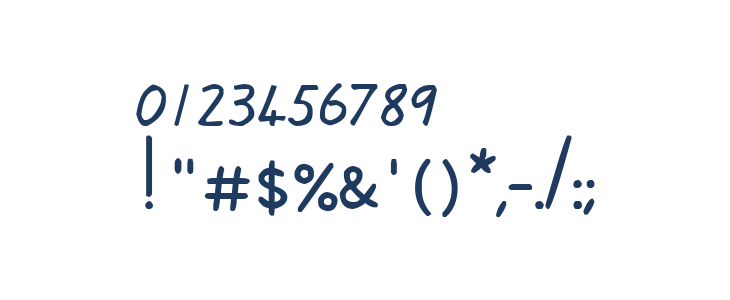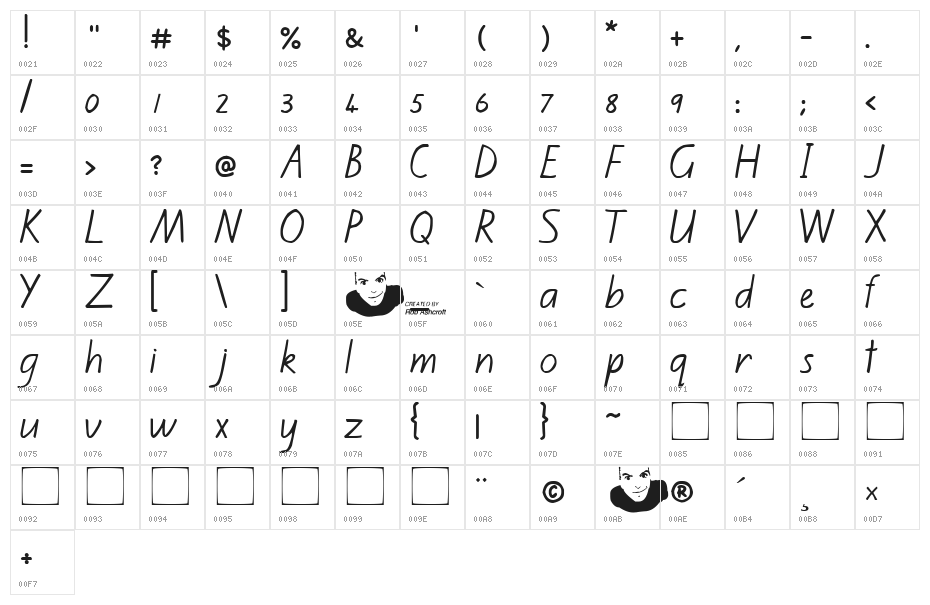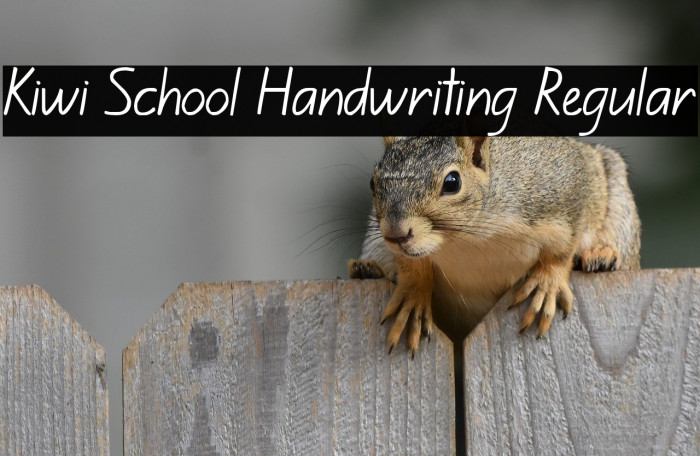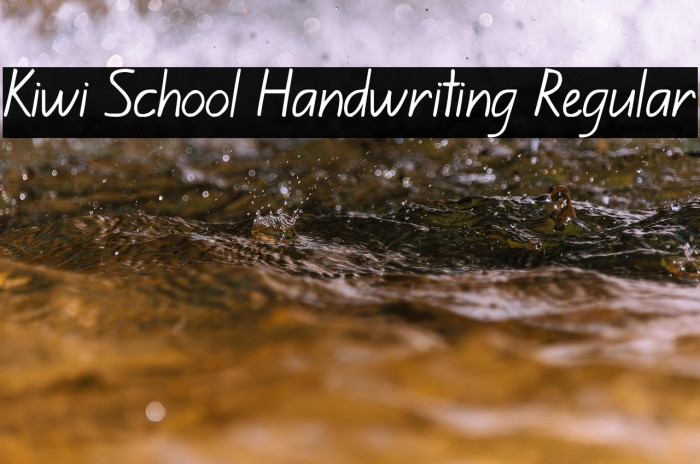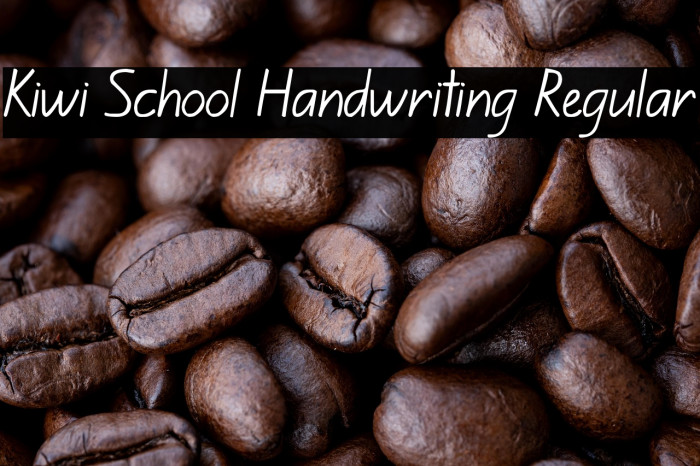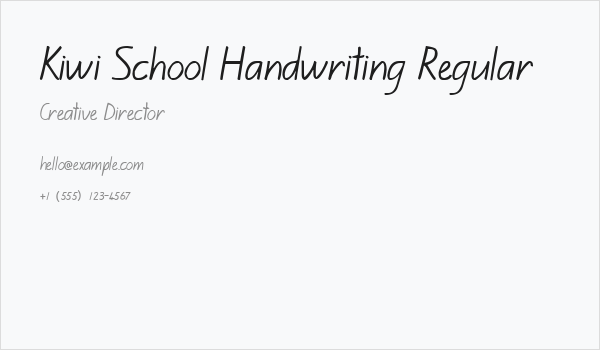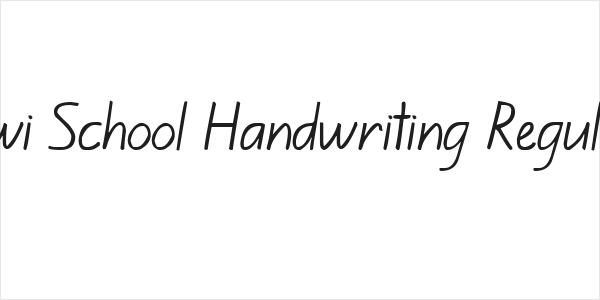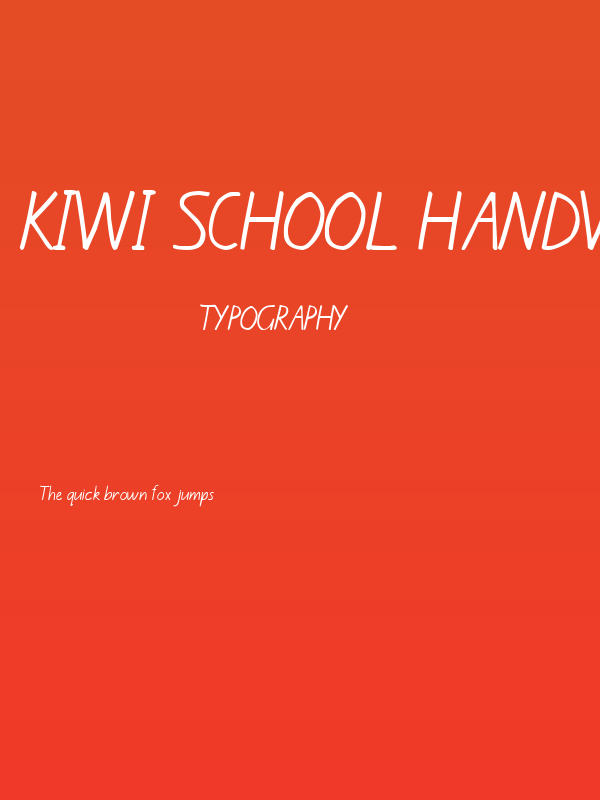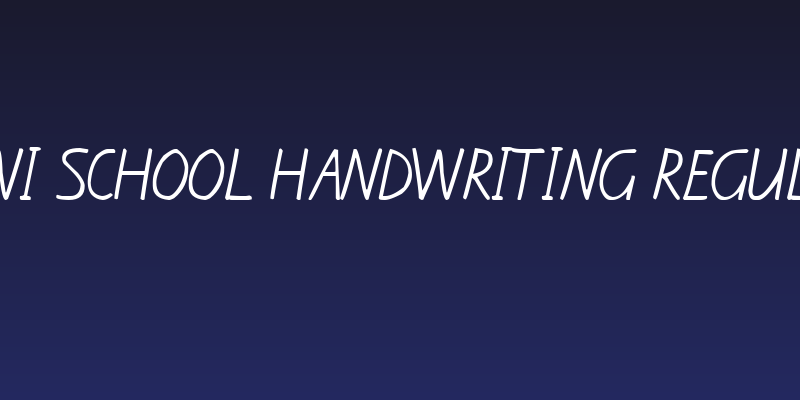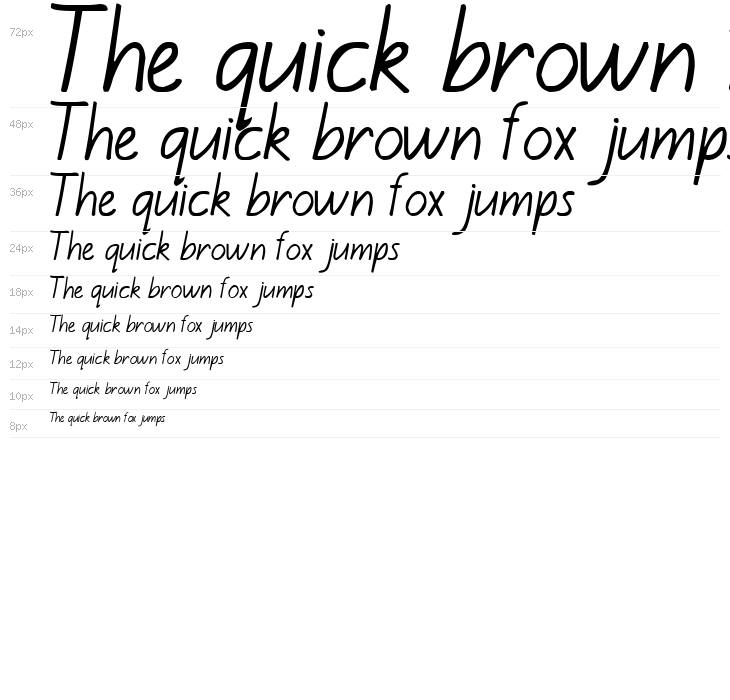
Kiwi School Handwriting Regular Font
Kiwi School Handwriting Regular Description
This font features a playful and casual handwritten style, reminiscent of school handwriting. The letters are slightly slanted, giving a dynamic and lively appearance. The strokes are smooth and consistent, with a medium thickness that ensures readability. The uppercase letters are well-proportioned, while the lowercase letters have a friendly, approachable look. Numbers and special characters maintain the same playful style, making the font versatile for various uses. The overall design is clean and uncluttered, making it suitable for projects that require a personal touch.
| Proposed Projects | Ideal for educational materials, children's books, personal notes, and creative projects that require a friendly and approachable look. |